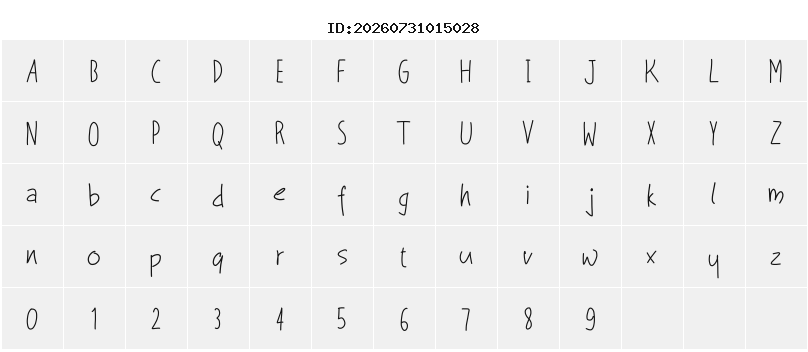
Living _ Dream Preview
• Font Name: Living _ Dream
• Full Font Name: Living _ Dream
About Living _ Dream.ttf
Living _ Dream.ttf is a modern, elegant sans-serif font designed for ultimate readability and visual harmony. Perfect for branding, headlines, web design, and print materials.